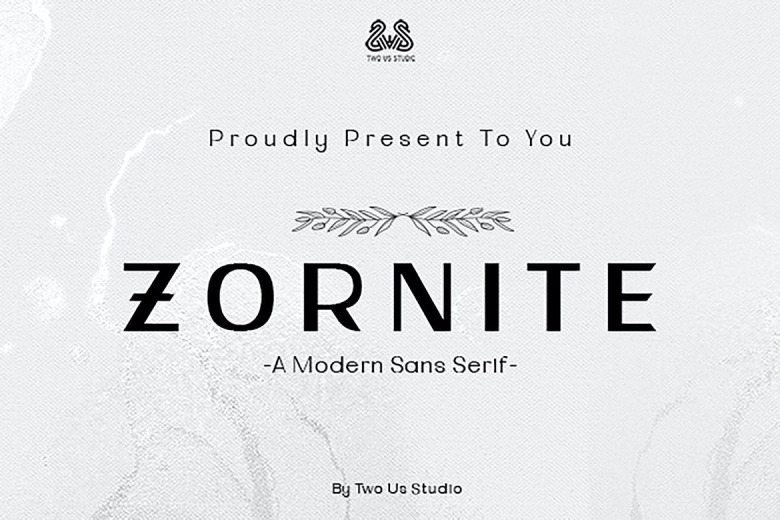
Zornite Font
Zornite is a fancy cartoon font. The minimalist and clean look is also perfect for your favorite designs like a book cover, magazine, posters, social media post, and so much more!
Zornite Sans Serif Font